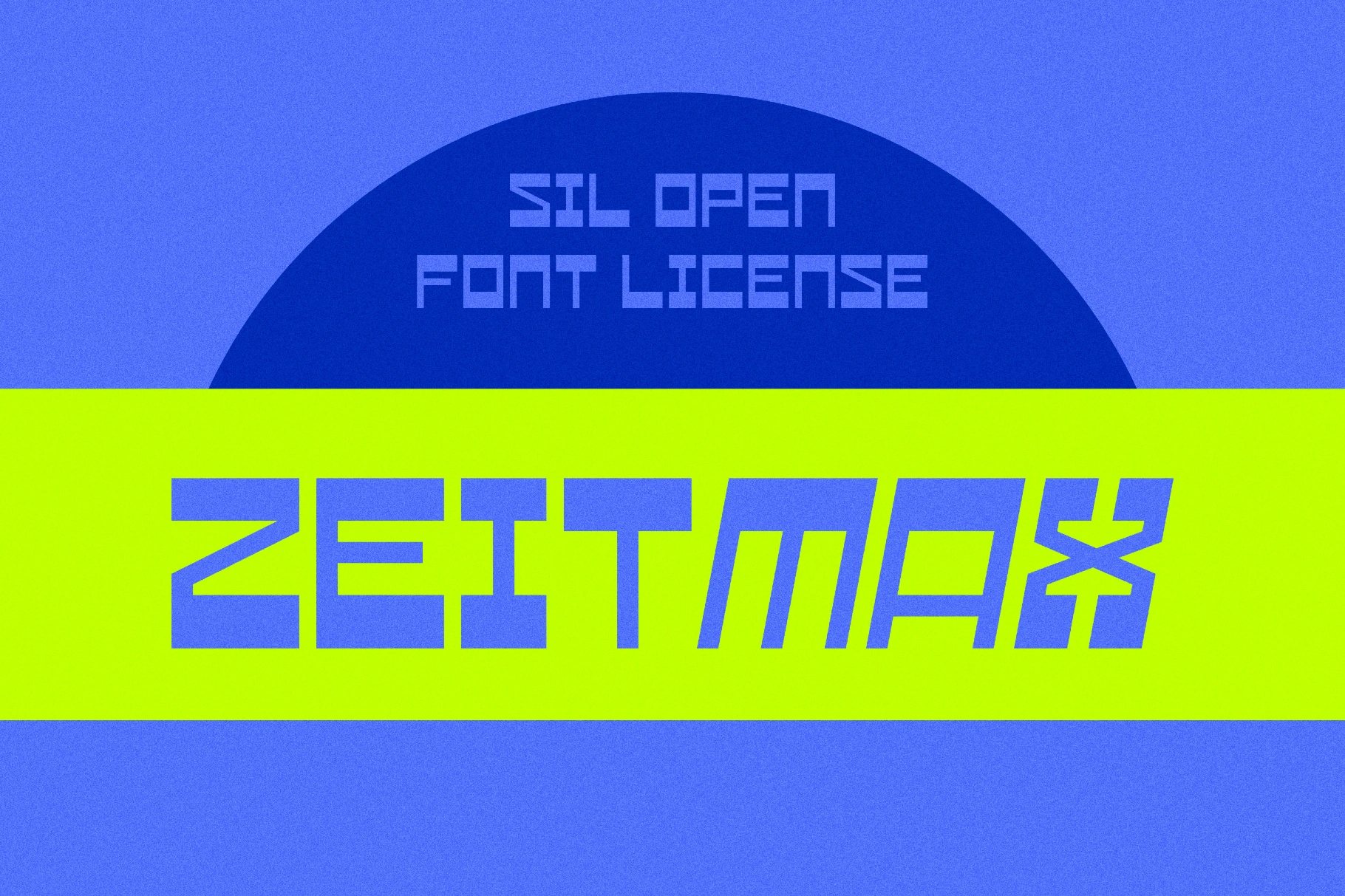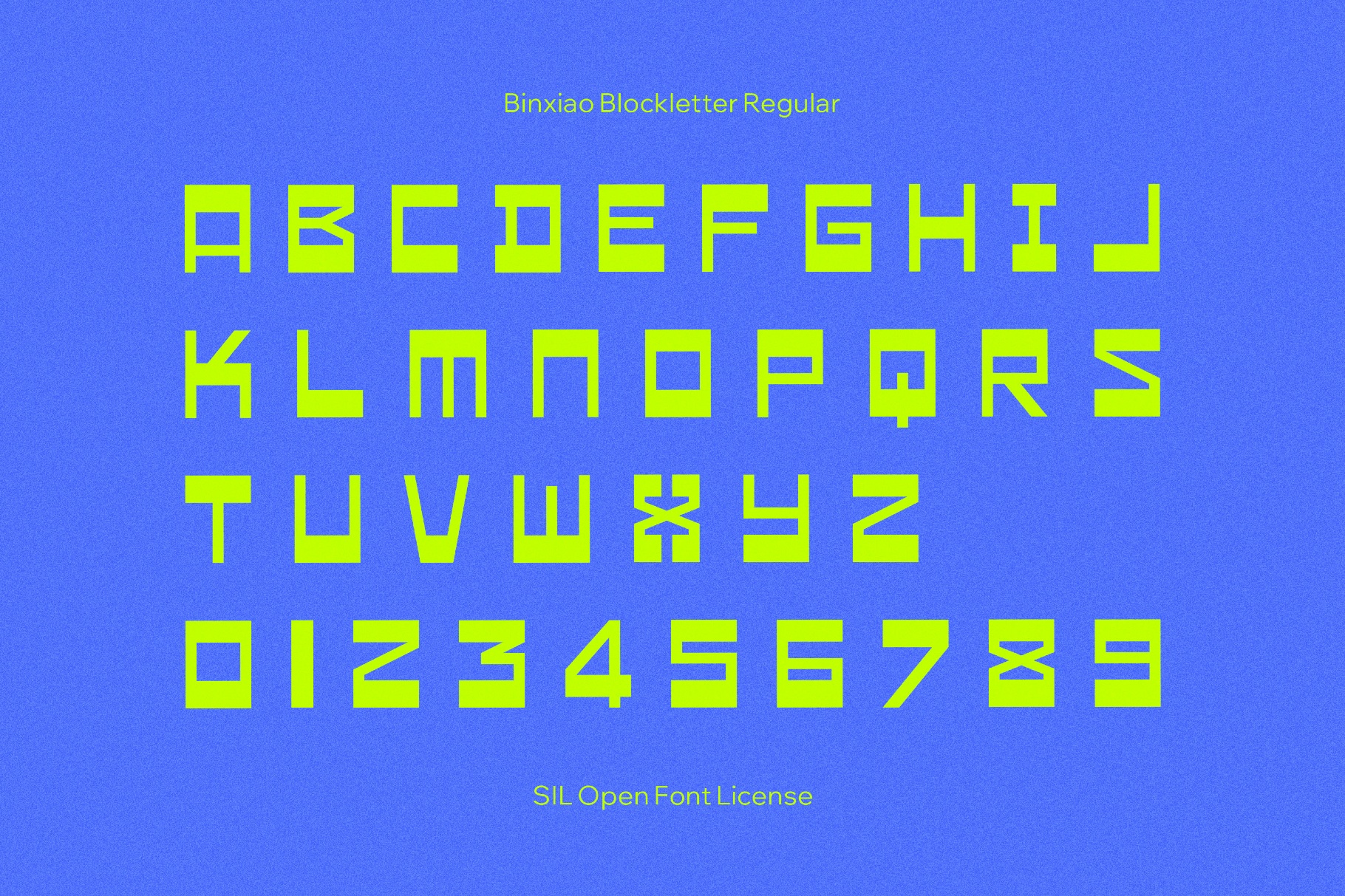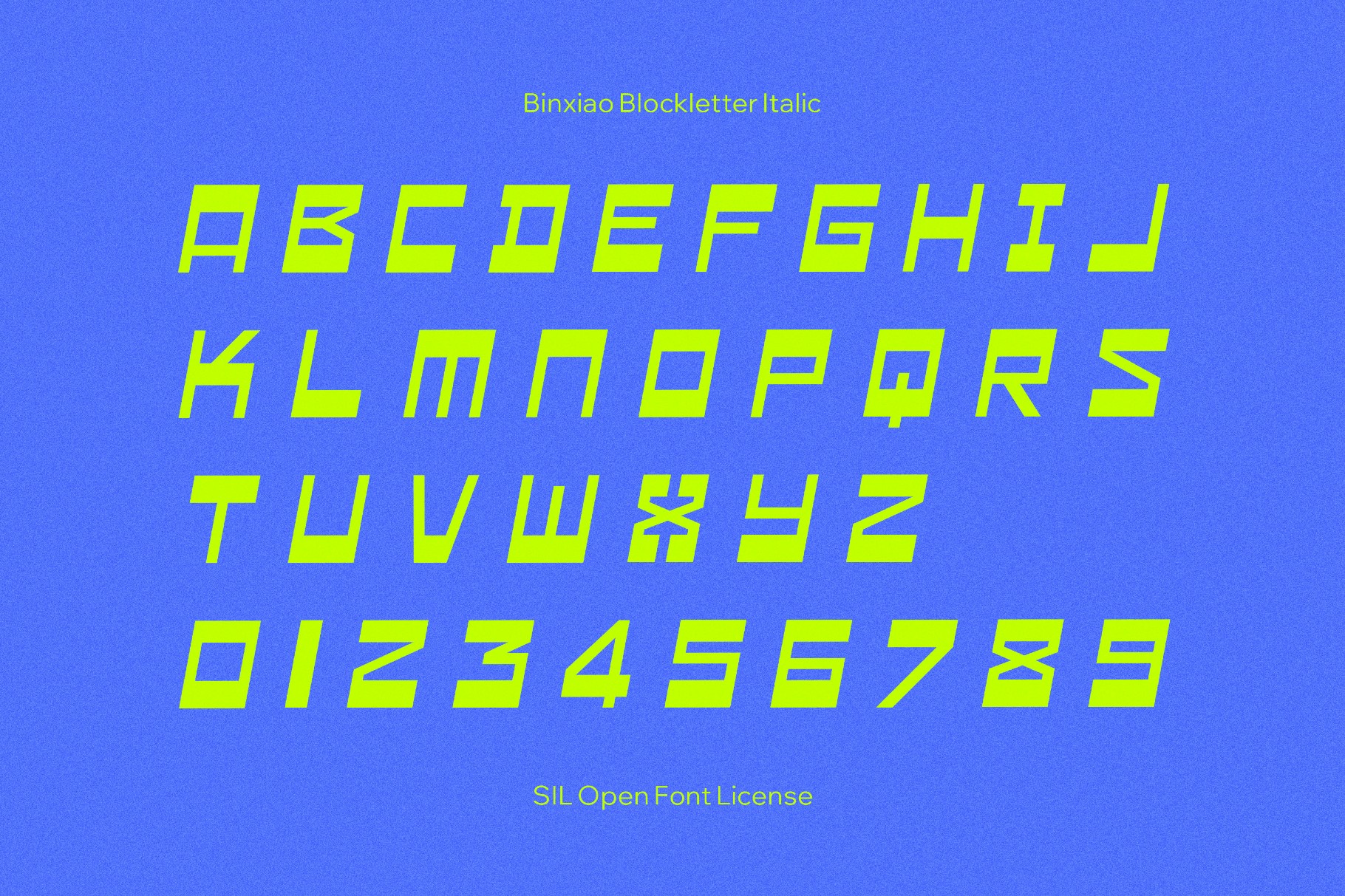
Zeitmax Font
Zeitmax
This neo-grotesque sans with squared proportions and clipped corners seems like late-’90s European interface design and post-Y2K corporate typography. It's engineered and slightly rhythmic. And it works well for brand systems, editorial layouts, UI and dashboard design, multilingual publications, tech documentation, cyberpunk posters, esports and gaming logos, launcher and dashboard titles, gadget branding, event artwork, and web typography.
- Two styles: Regular and Italic.
- Uppercase letters only.
- International characters with multilingual support across extended Latin and Cyrillic scripts.